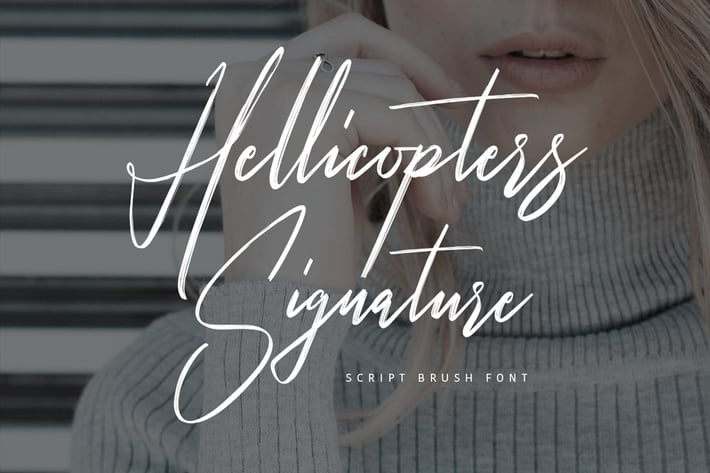
Hellicopters Typeface
Give your designs an authentic handcrafted feel. “Hellicopters Typeface” is perfectly suited to stationery, logos and much more.